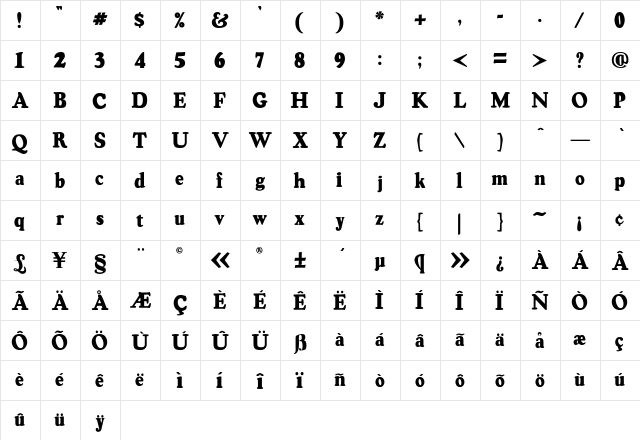
Marinao black Regular
Design Context for Marinao black Typeface
Marinao black takes a measured approach to typography — its balanced proportions and neutral character make it a reliable workhorse for both digital and print work.